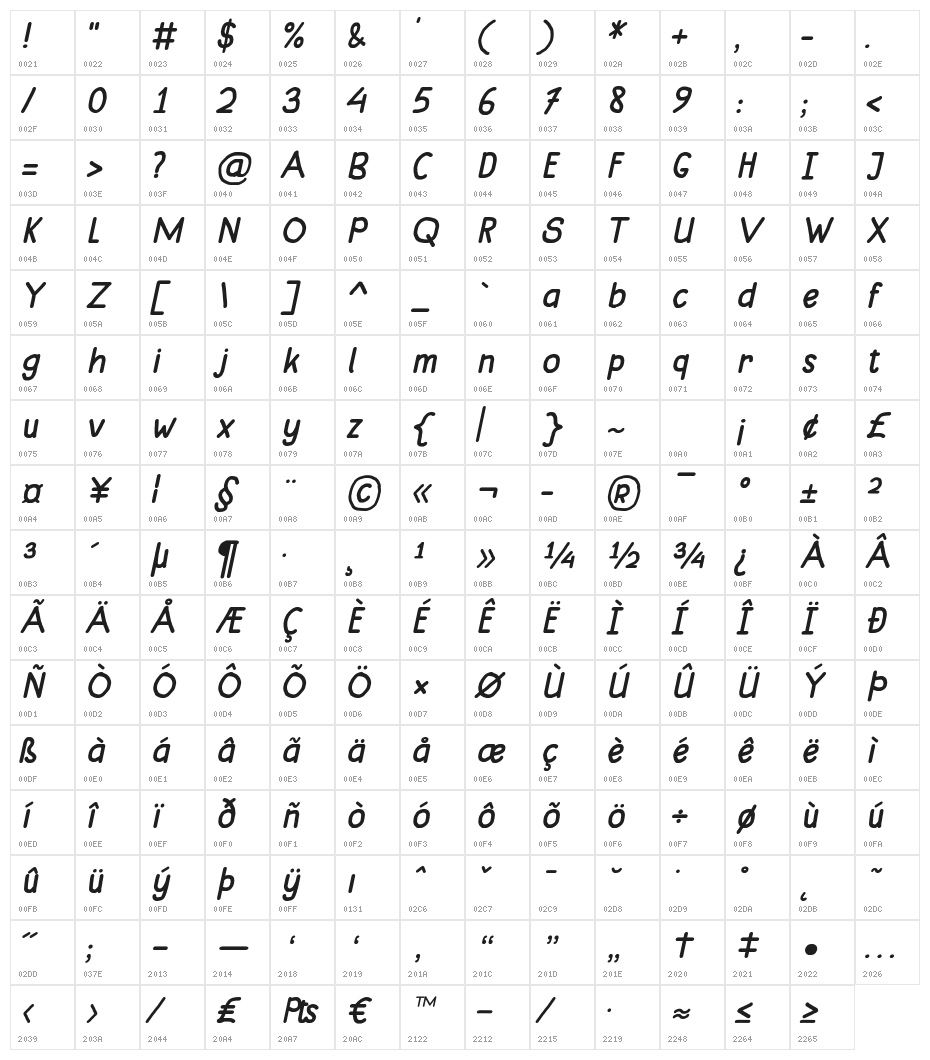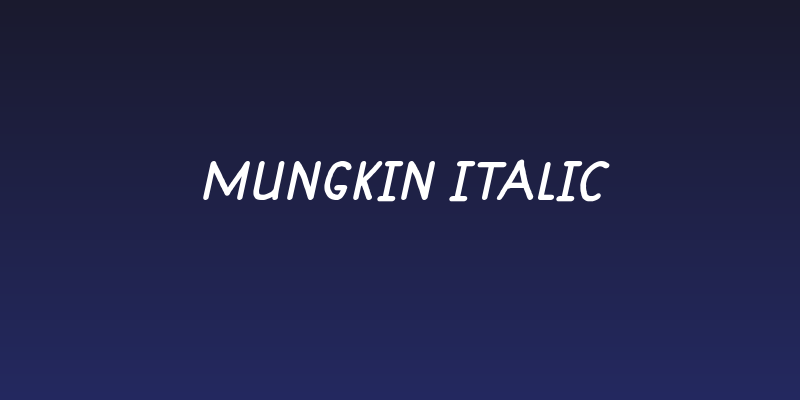
Mungkin Italic Font
Mungkin Italic Description
This font features a casual, handwritten style with a slight slant, giving it an italic appearance. The characters are smooth and rounded, with a consistent stroke width that conveys a friendly and approachable feel. The uppercase and lowercase letters are well-balanced, and the numerals are clear and legible. Special characters are included, maintaining the same playful and informal aesthetic. This font is versatile, suitable for projects that require a personal touch or a relaxed vibe.
| Use Case | Logos, Headlines, Informal text |
| Proposed Projects | Ideal for greeting cards, personal branding, social media graphics, and informal invitations. |